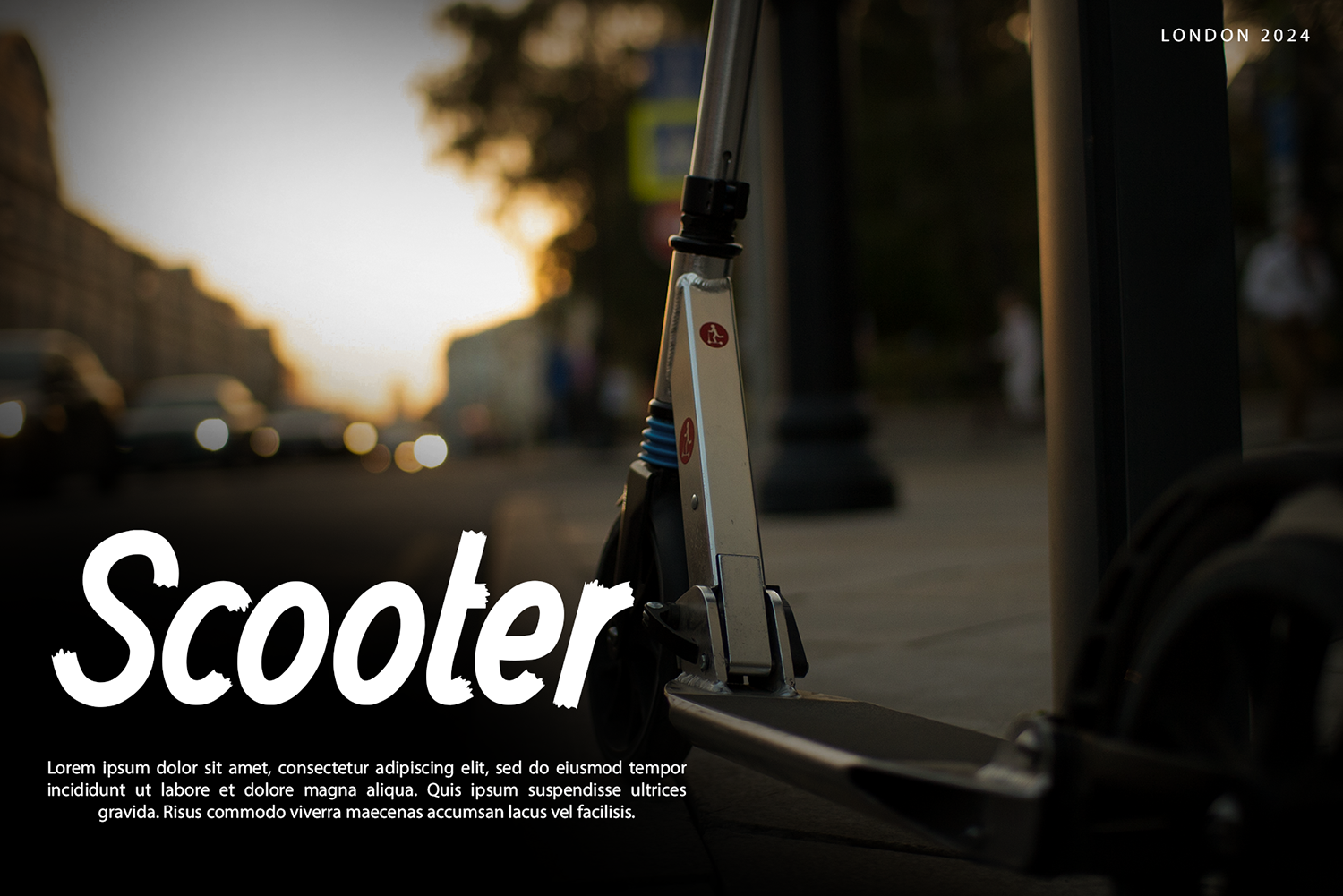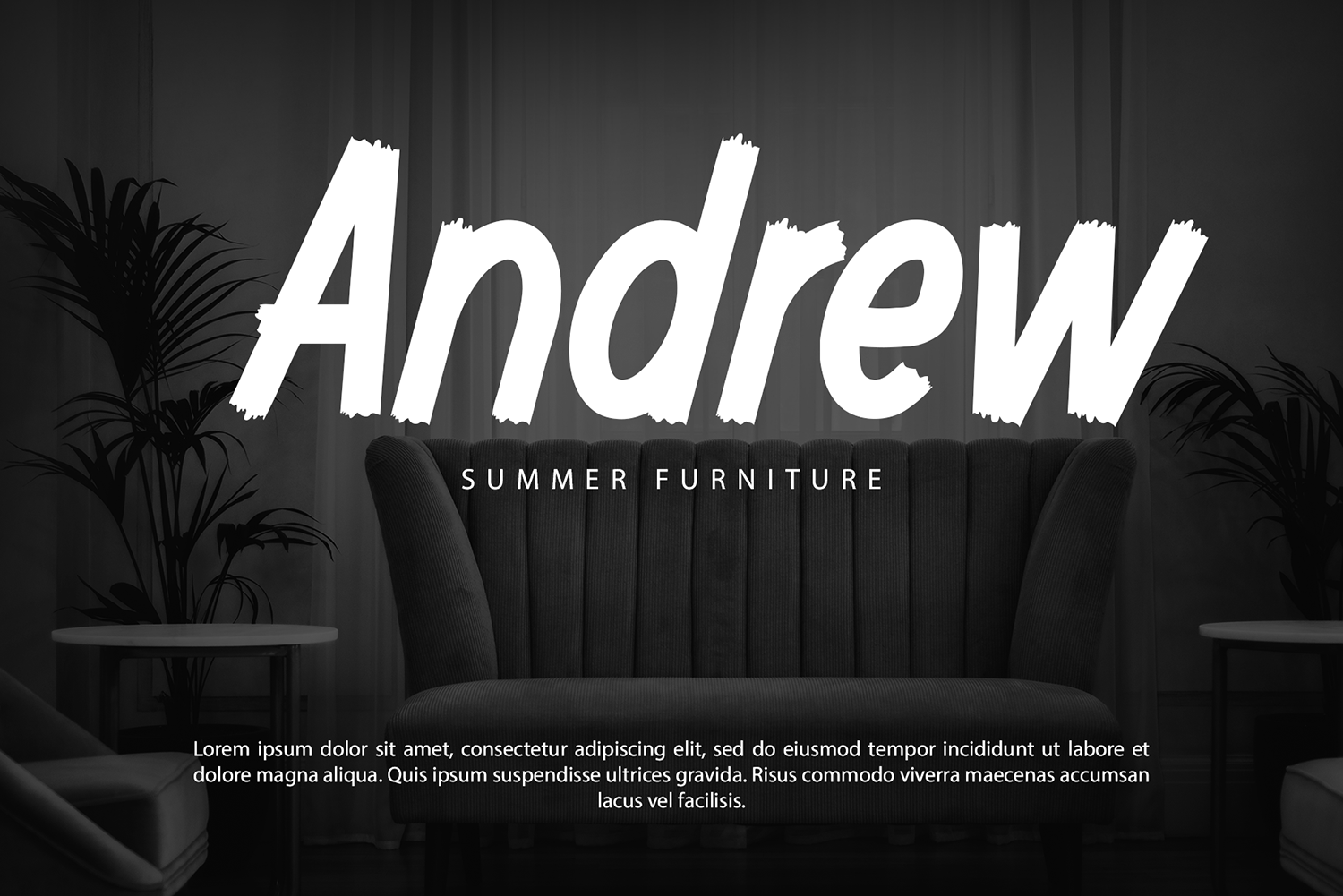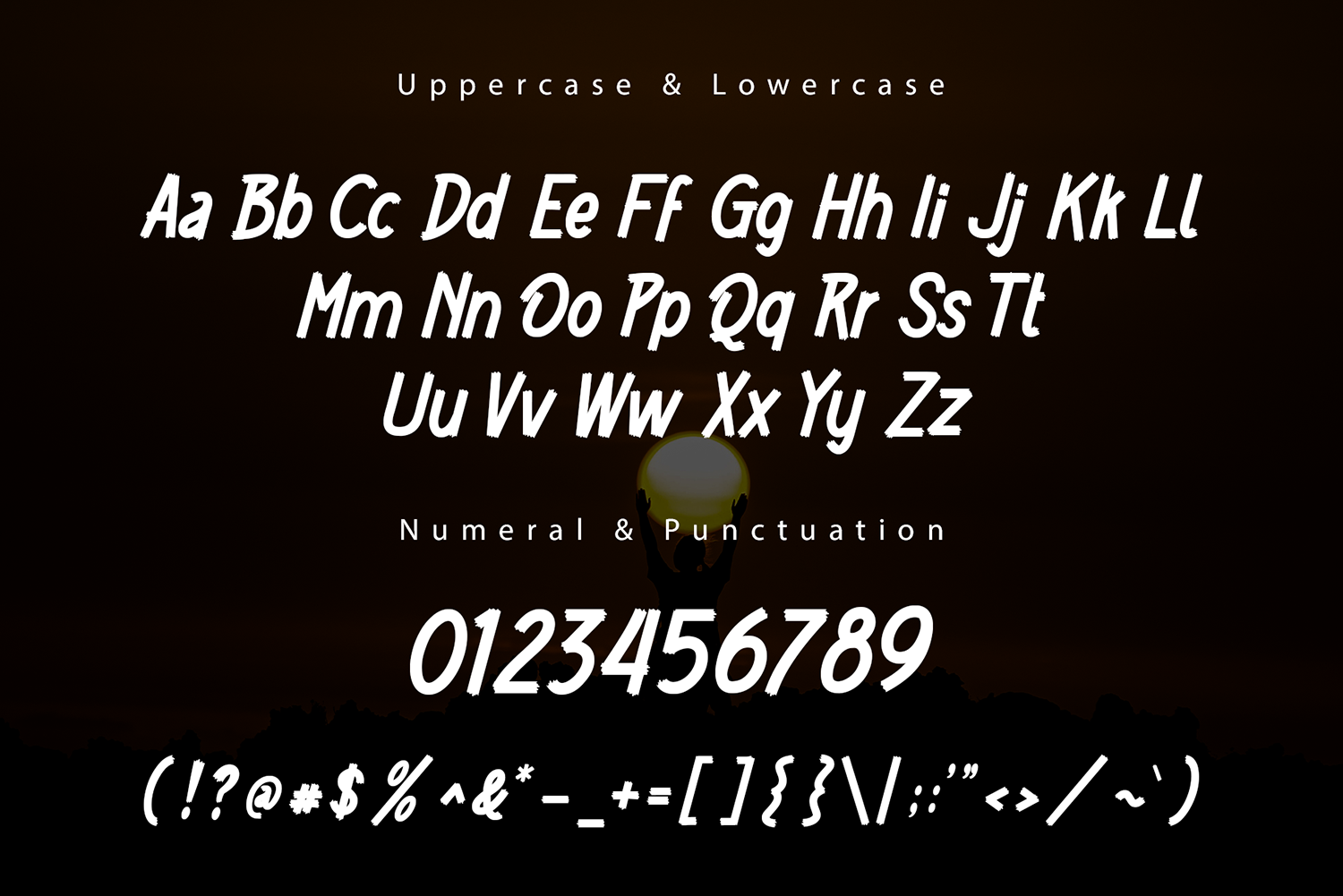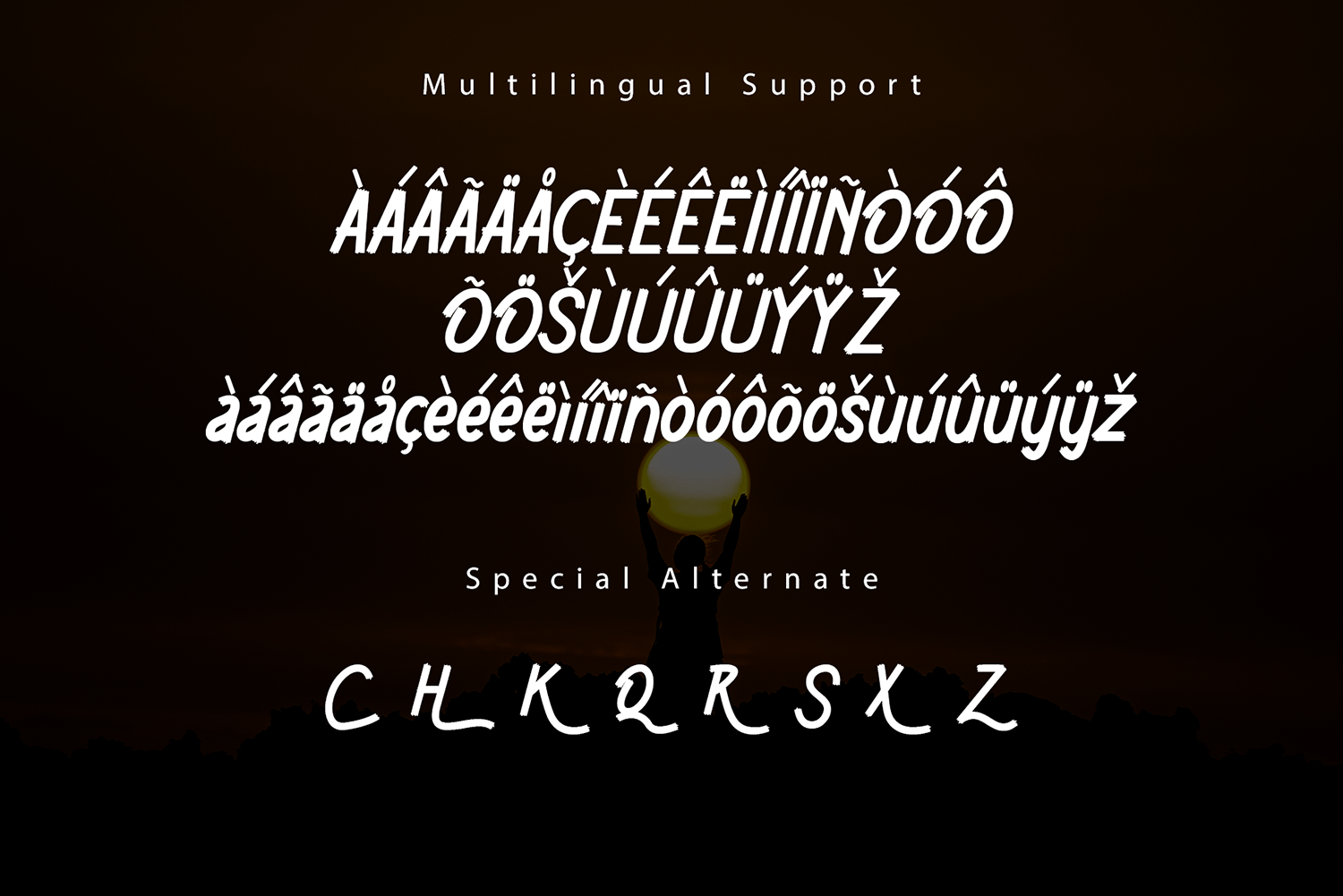
Sunblood Free Font
Sunblood Free Font is a sleek and modern display font that effortlessly enhances a wide range of designs, whether they lean towards formality or informality. Let your imagination run wild because with Sunblood, there are no creative limits. This free typeface was designed by a talented Display Studio. If you like it don’t forget to check out the full version.